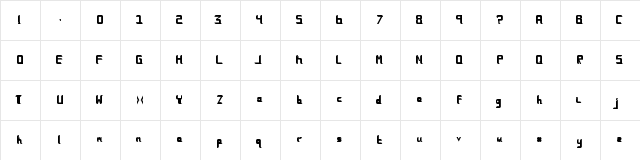
To the right Regular
| Designer | Benjamin O'Sullivan |
Design Context for To the right Typeface
To the right takes a measured approach to typography — its balanced proportions and neutral character make it a reliable workhorse for both digital and print work.